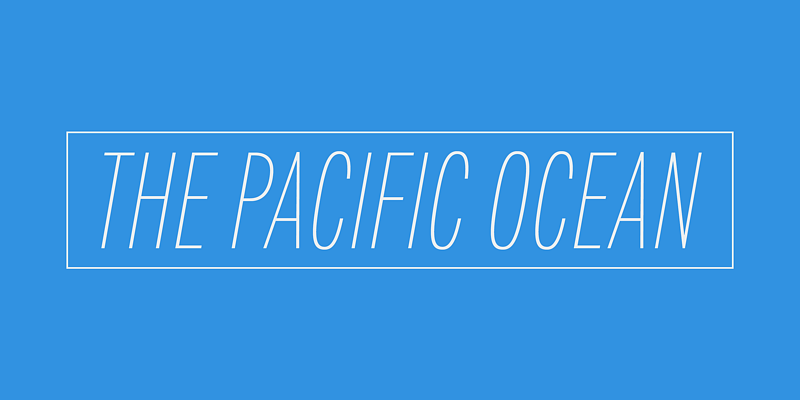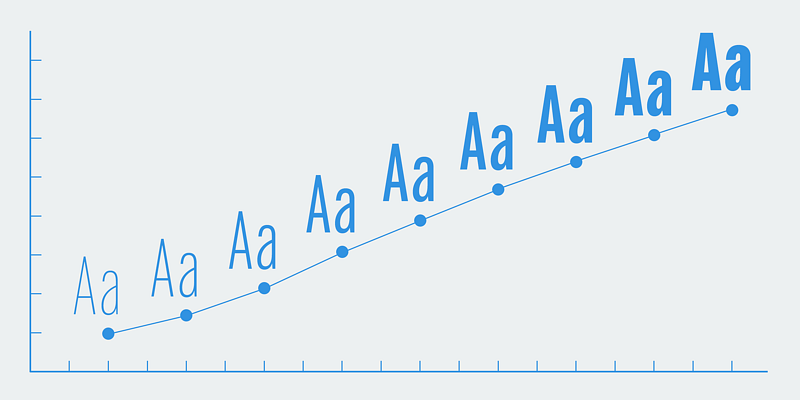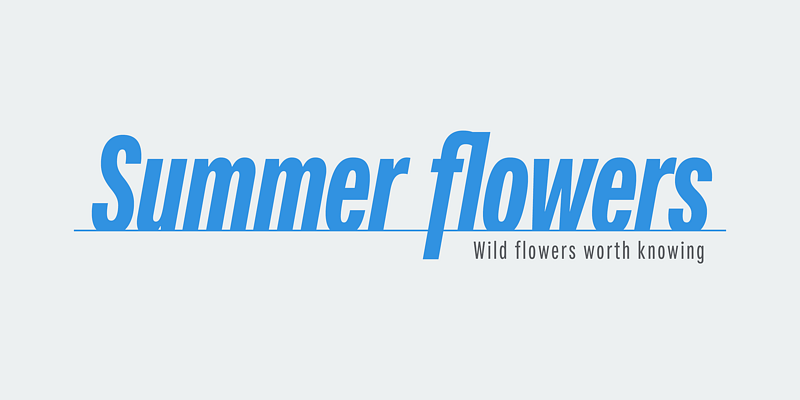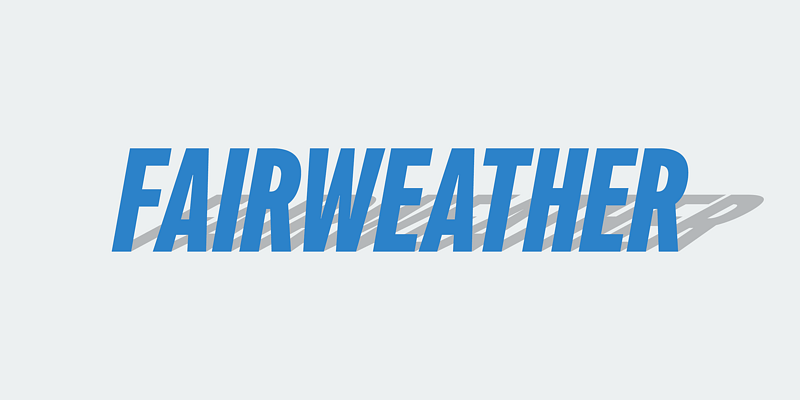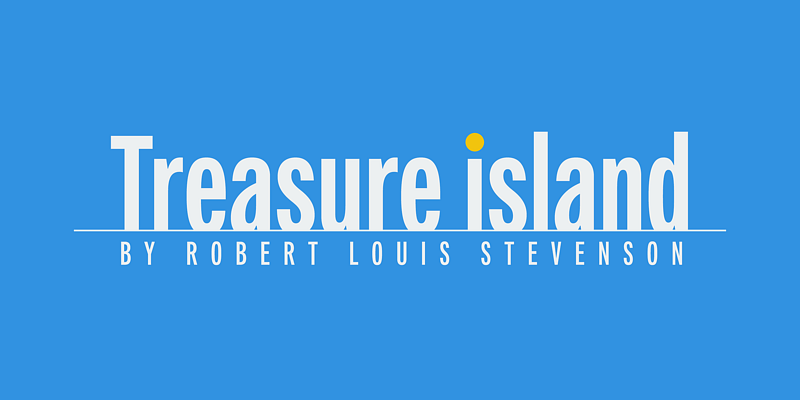
Fairweather is a fresh air. Clear, transparent, and lucid as if it is the spring and autumn sky. By designed condensed, legible and perspicuous, Fairweather is perfect for titles and captions.